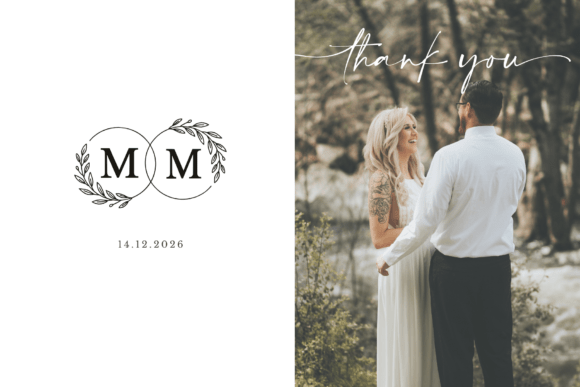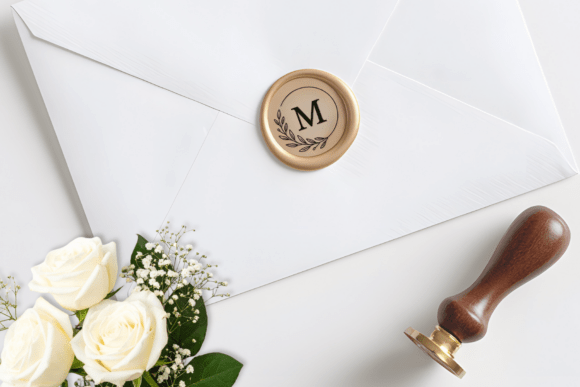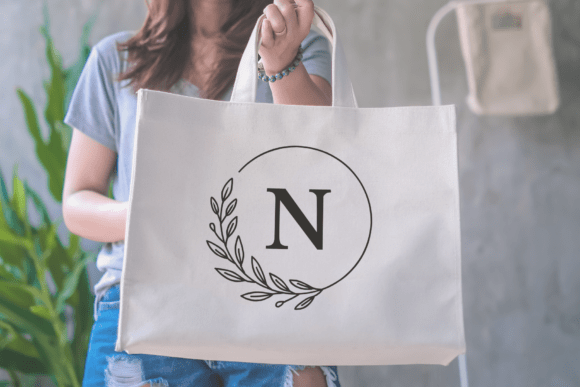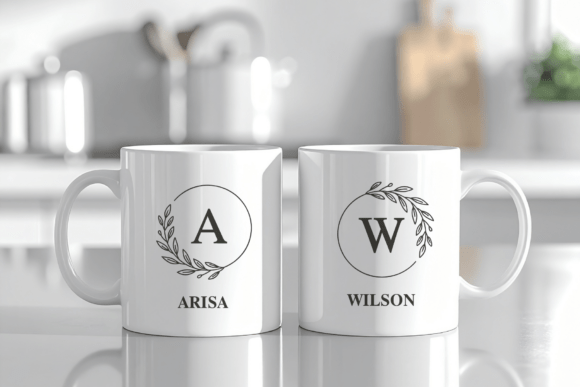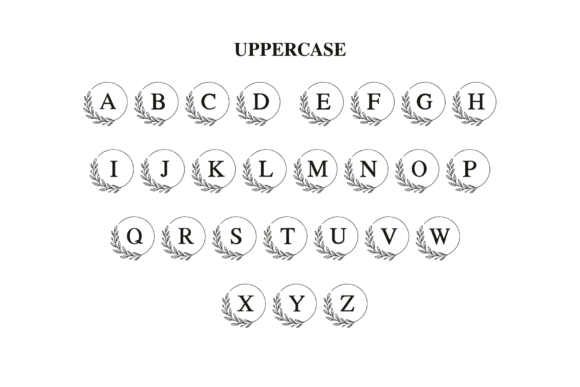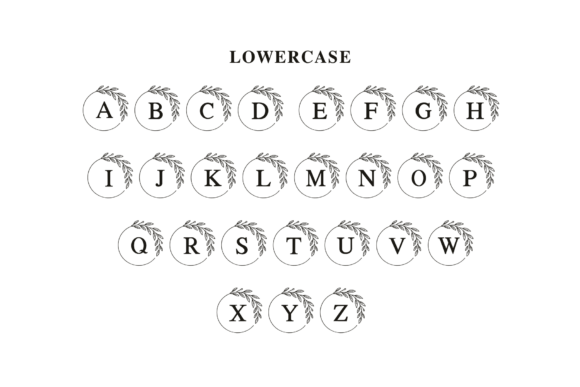
The Elegance of Botanical Style Monogram Font
I’ll never forget the time I was working on a wedding invitation project, and my client asked for a font that would make their special day feel like a fairytale. I scoured the internet, tried out countless fonts, but nothing seemed quite right. That was until I stumbled upon the Botanical Style Monogram Font. It was love at first sight! The elegant serif letters, the delicate botanical wreaths – it was exactly what I needed to bring my client’s vision to life.
A Personal Review
As a designer, I’m always on the lookout for fonts that can elevate my projects. Here’s what I love about the Botanical Style Monogram Font:
- ✨ Elegant and sophisticated design that’s perfect for wedding designs, logos, invitations, and more
- ✅ Delicate botanical wreaths that add a touch of natural beauty to any project
- 🌿 Timeless design that works well with a variety of creative projects, from branding to home decor
- 🤔 Some of the botanical wreaths can be a bit finicky to work with, especially if you’re new to using OpenType features
- ⚠️ The font may not work as well with very short texts or headings, as the wreaths can make the text a bit more dense
The Story Behind the Font
The Botanical Style Monogram Font was inspired by the classic botanical illustrations of the 18th century. The designer wanted to create a font that would evoke the elegance and sophistication of this era, while also incorporating modern elements and flexibility. The result is a font that’s both timeless and versatile, perfect for a wide range of creative projects.
| Font Name | Botanical Style Monogram Font |
| Author | Pui Art |
| Is the font suitable for body text? | While the Botanical Style Monogram Font is beautiful, it’s best suited for headings and titles rather than body text. The font’s elegant design and botanical wreaths make it a bit more dense and harder to read in large blocks of text. |